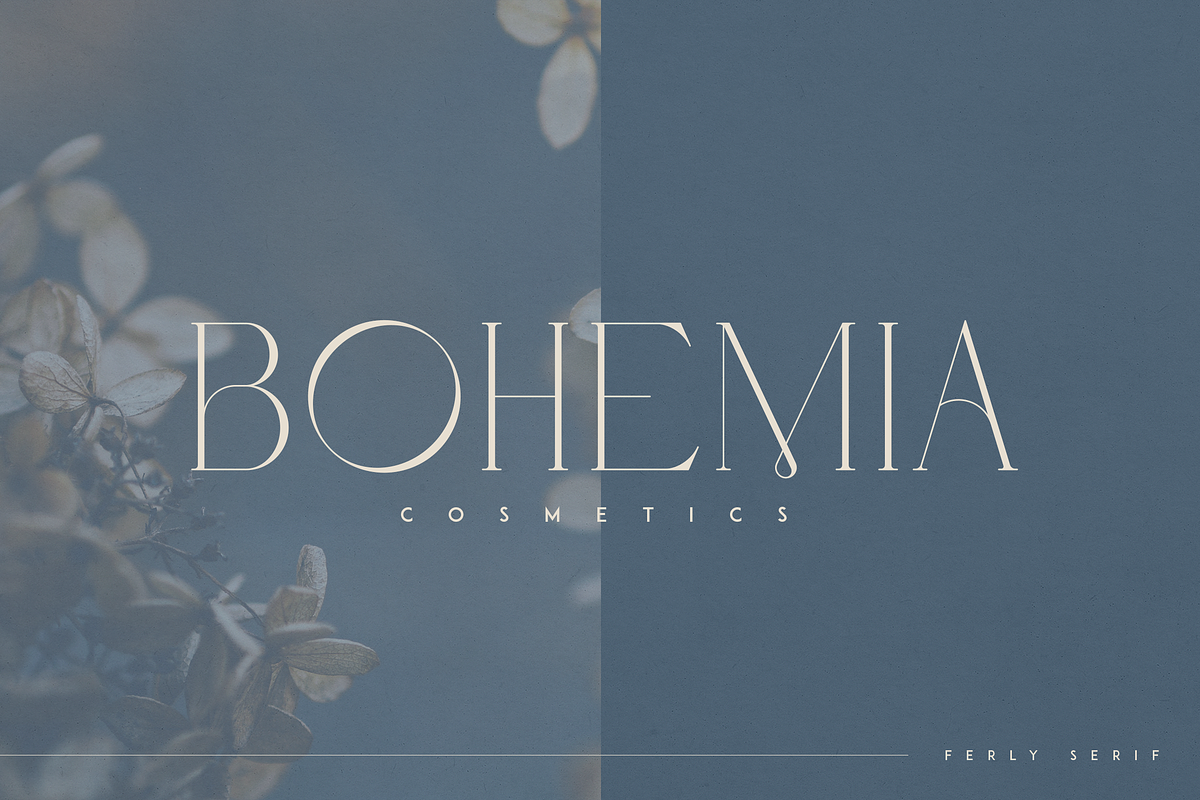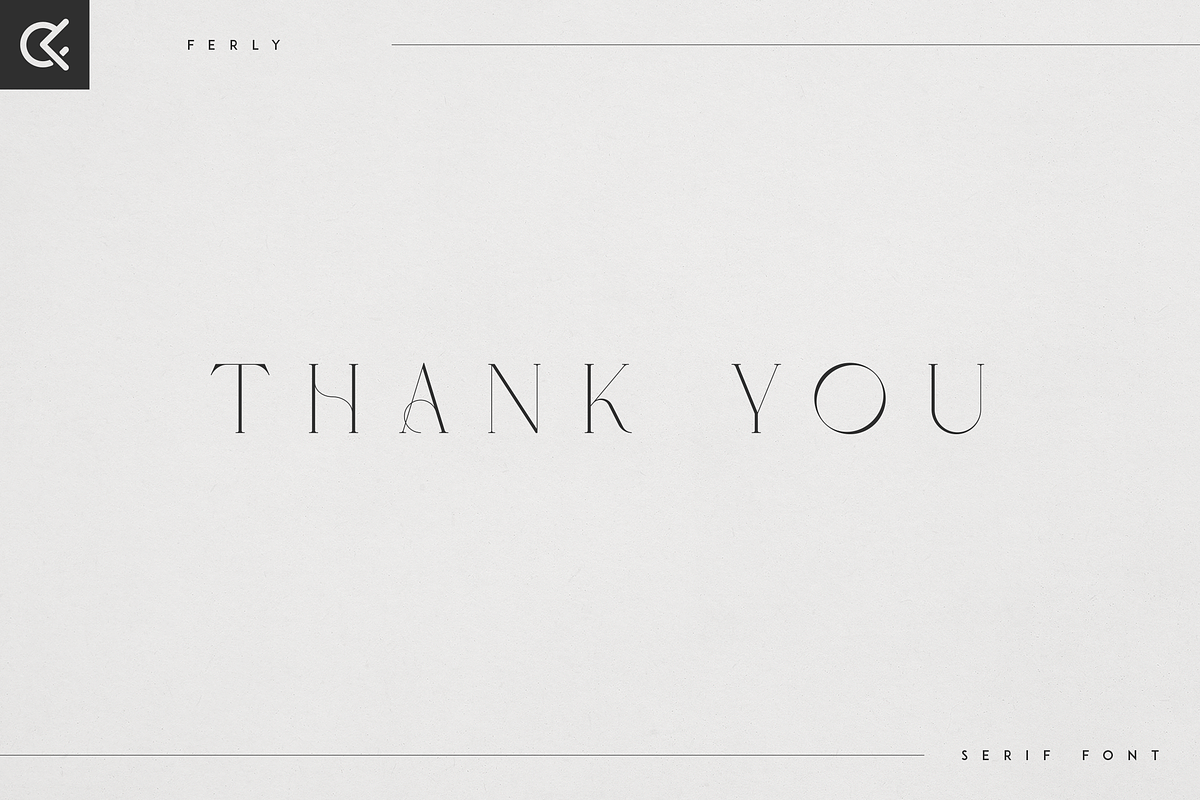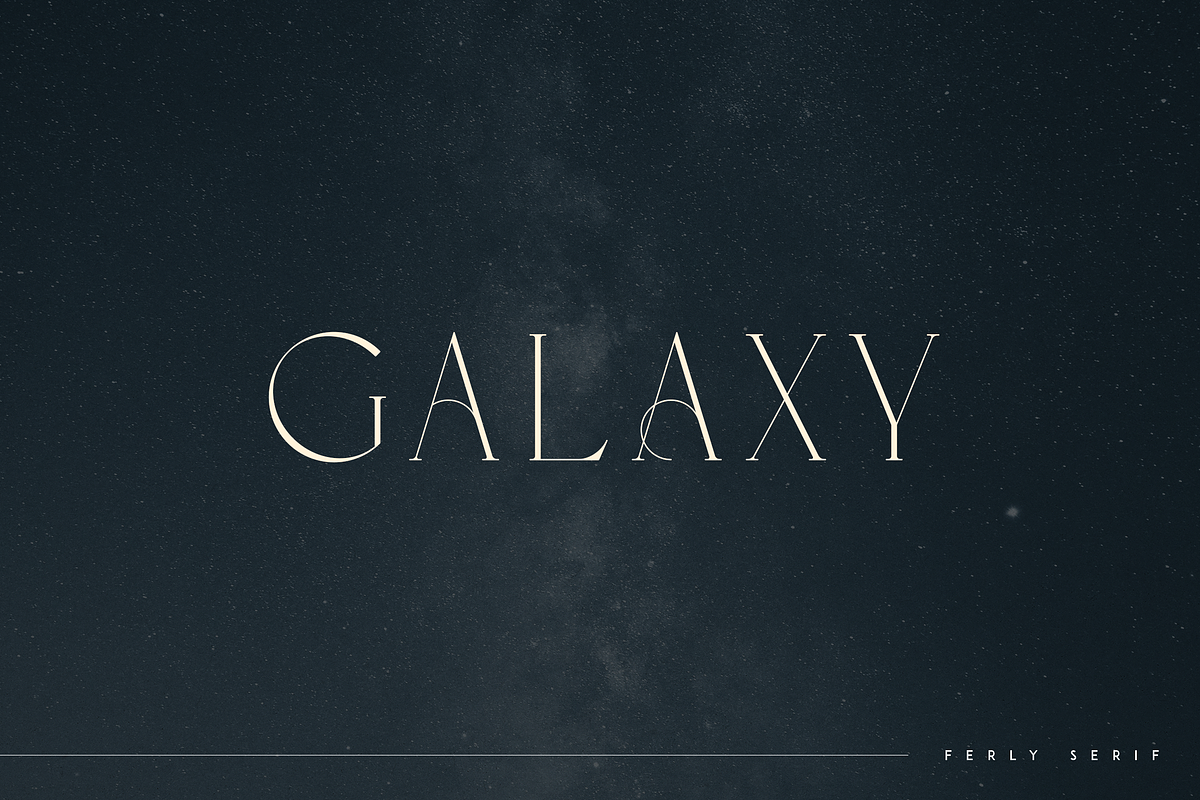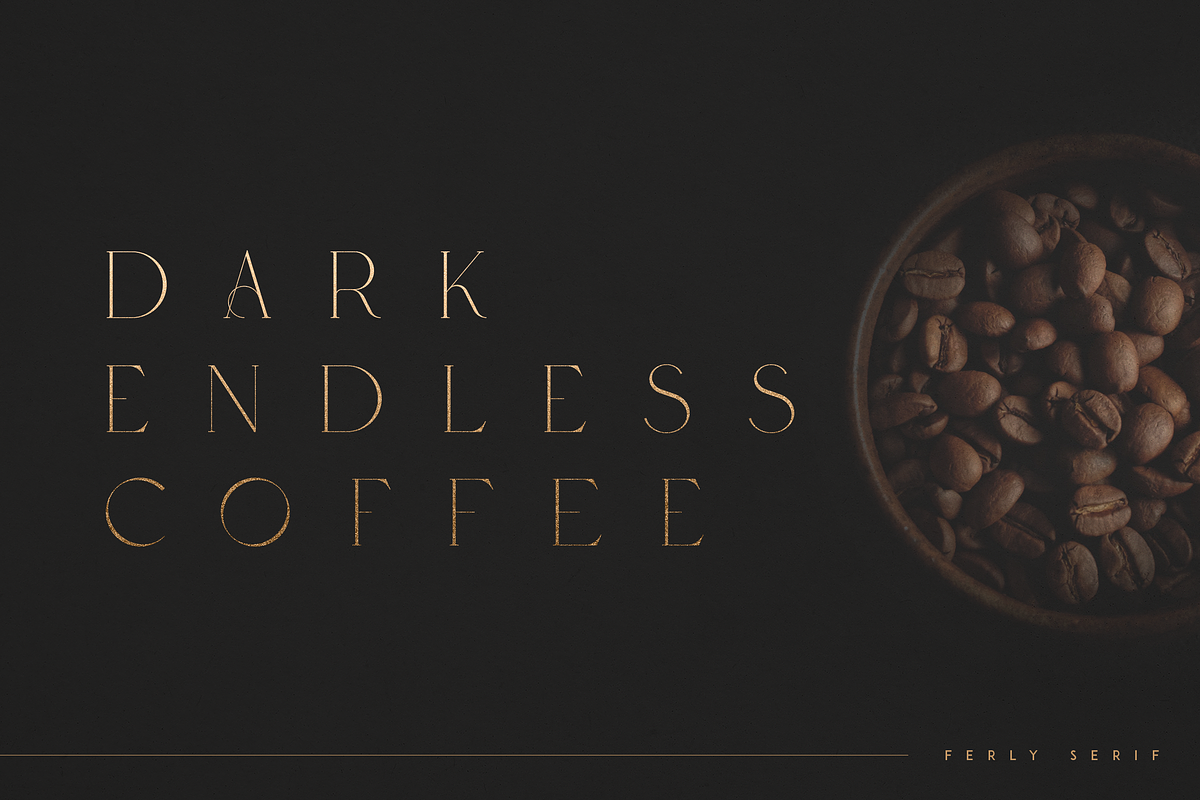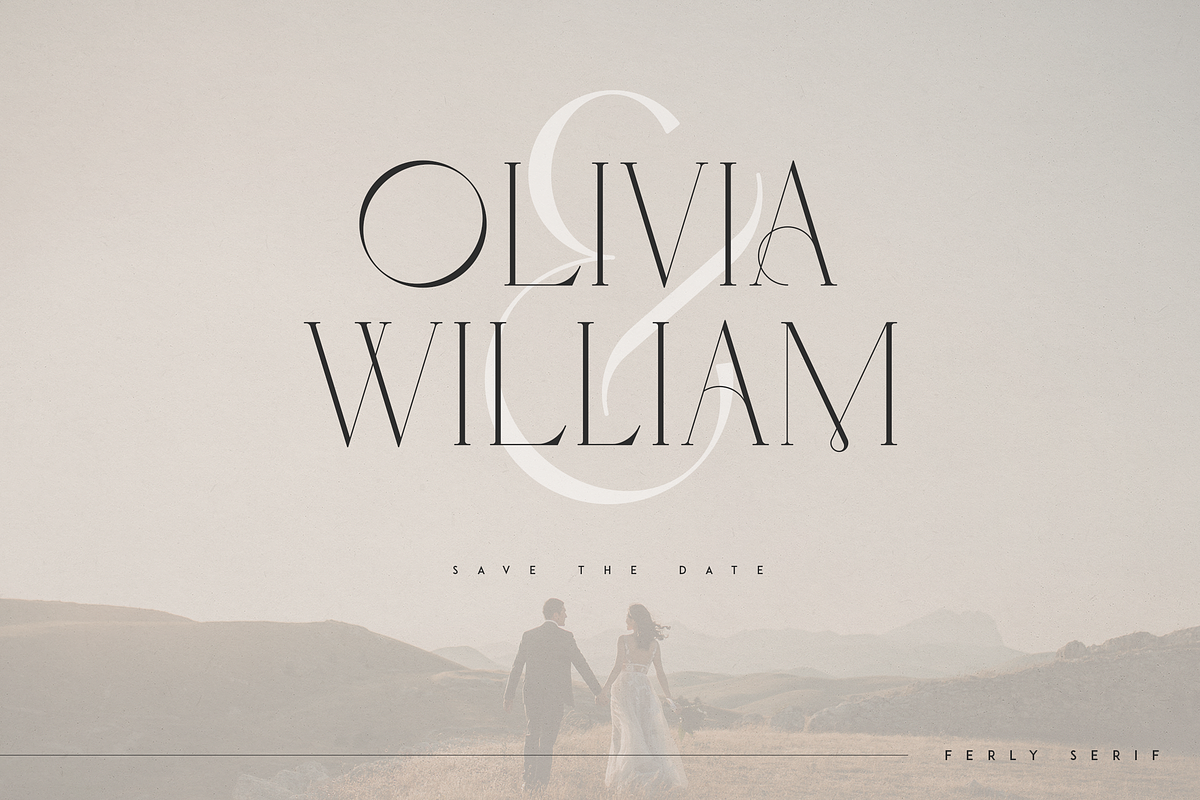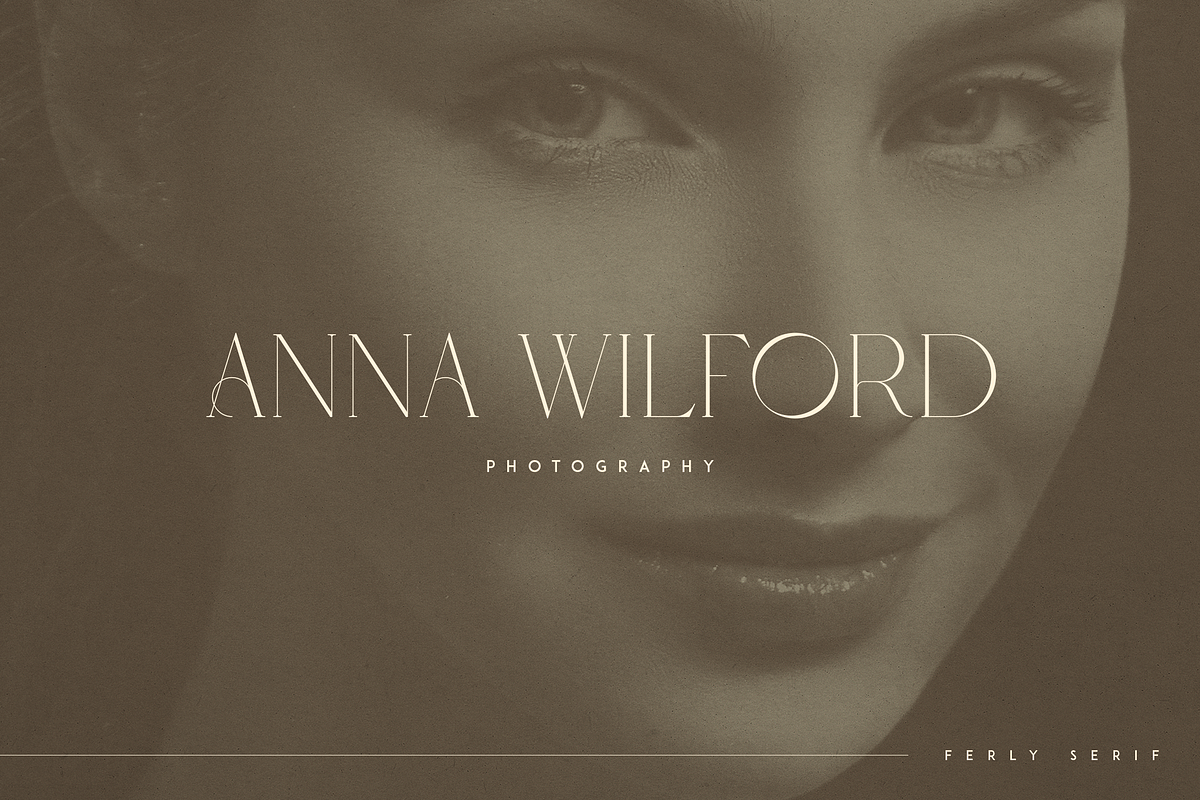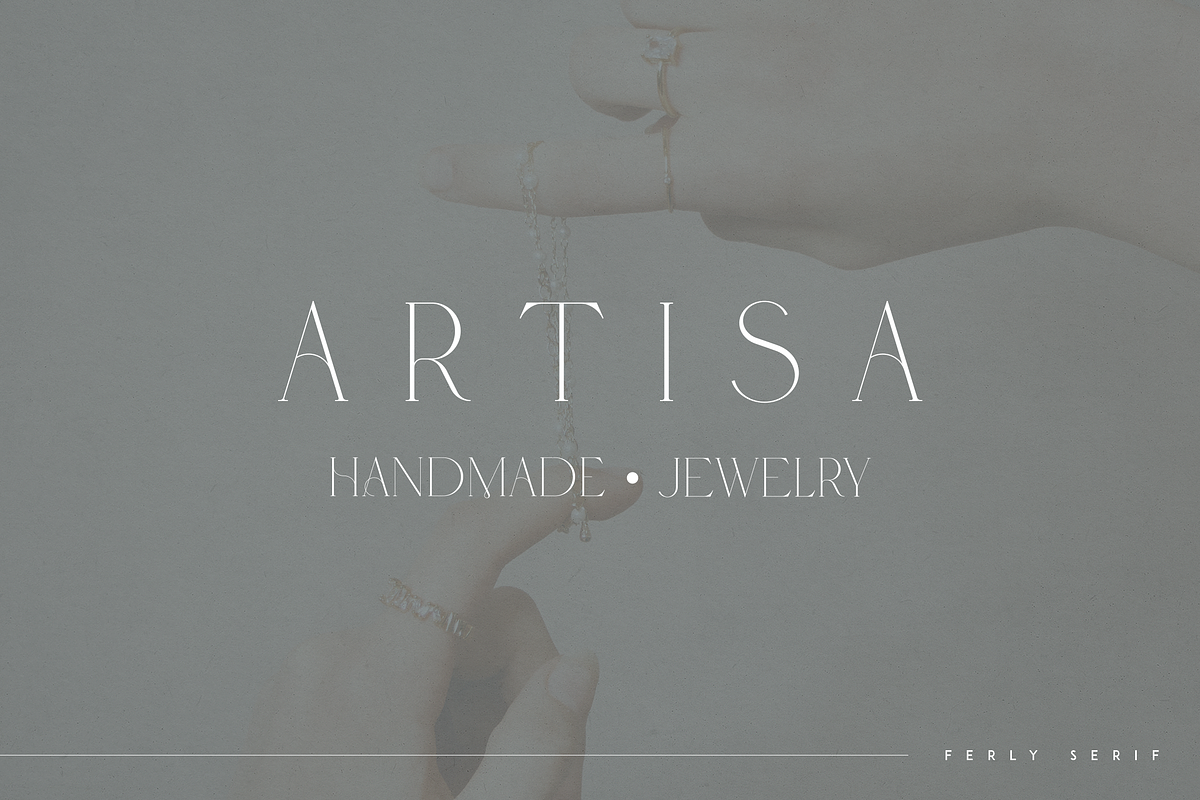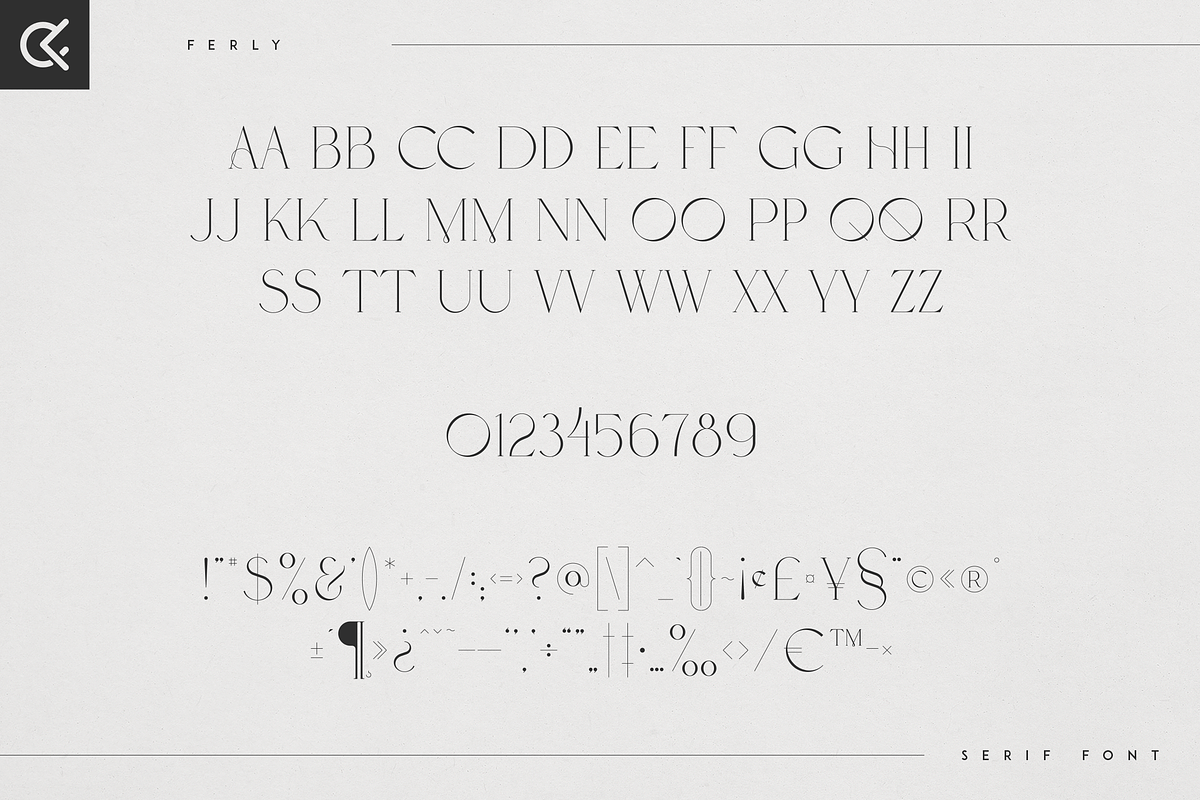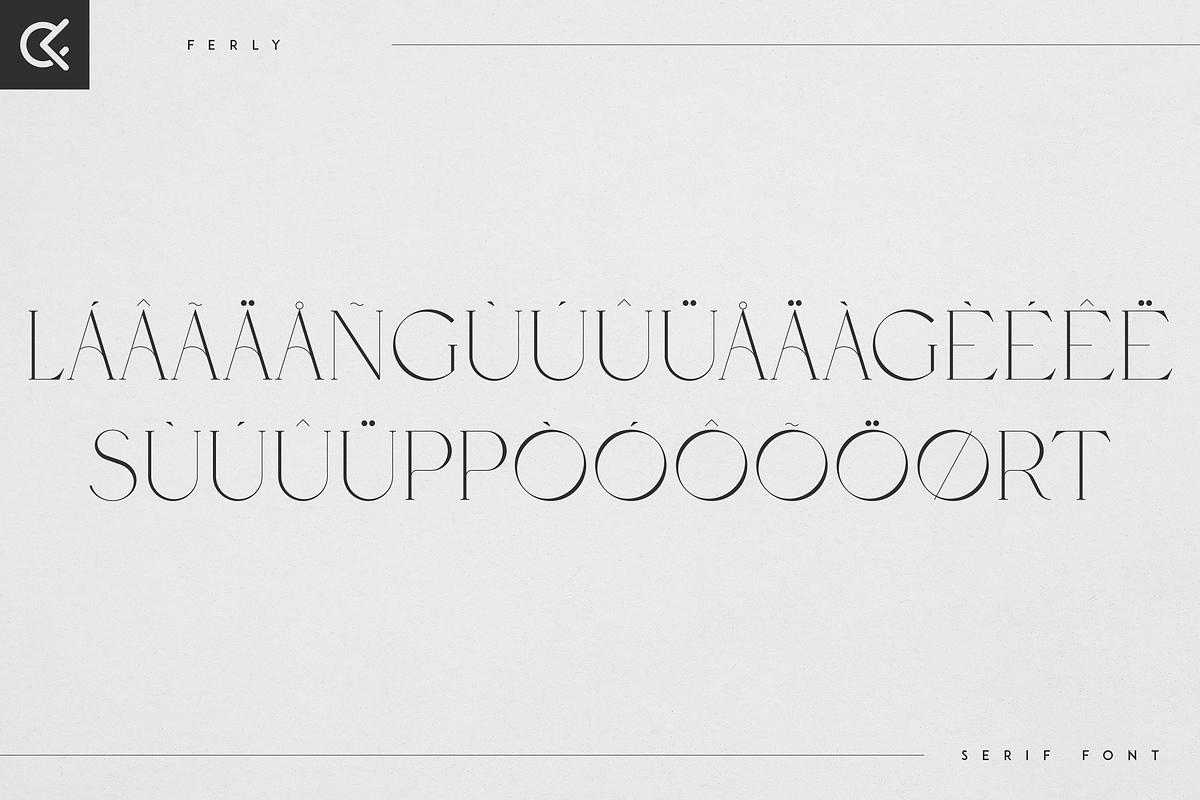
Ferly - Elegant serif font
Introducing Ferly - Elegant serif font
Ferly is luxury and fragile font with multilingual support. It's a very versatile font that works great in large and small sizes.
This font is perfect for branding projects, home-ware designs, product packaging, magazine headers - or simply as a stylish text overlay to any background image.